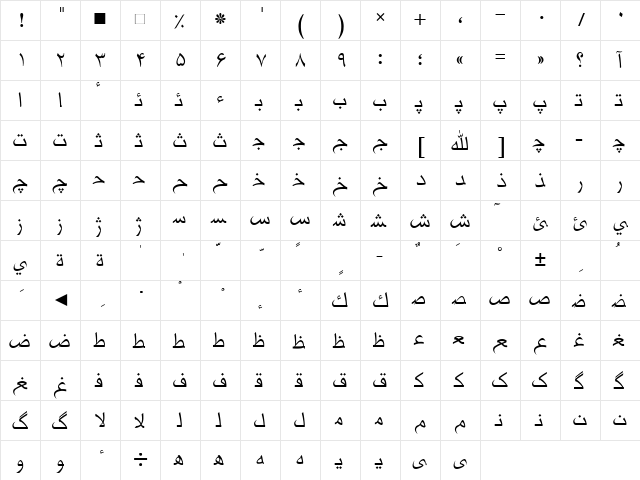
HMSKhabar Regular
| Designer | Hossein Zahedi |
Design Context for HMSKhabar Typeface
HMSKhabar offers clean, dependable letterforms without strong stylistic allegiance, making it a practical choice for designers who need flexibility.